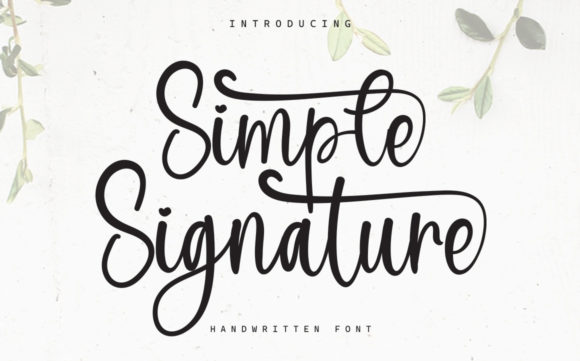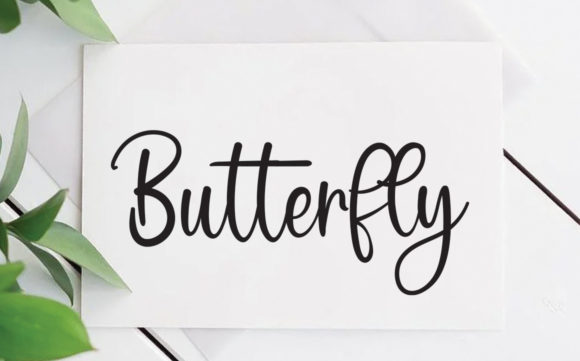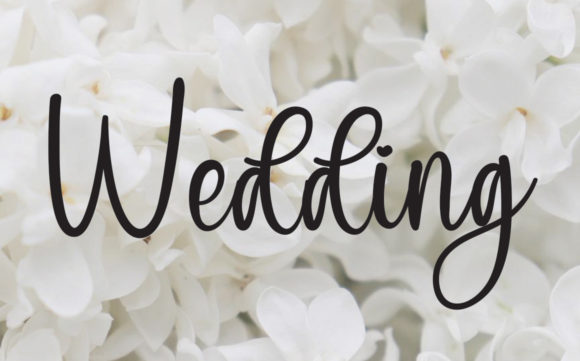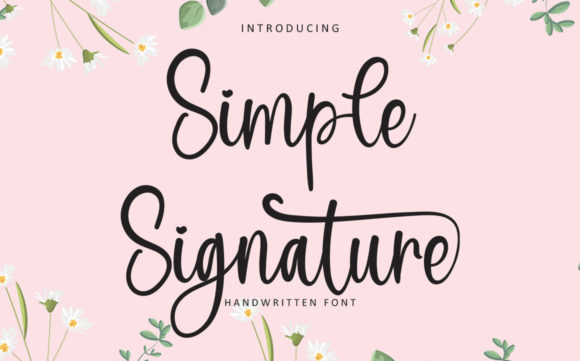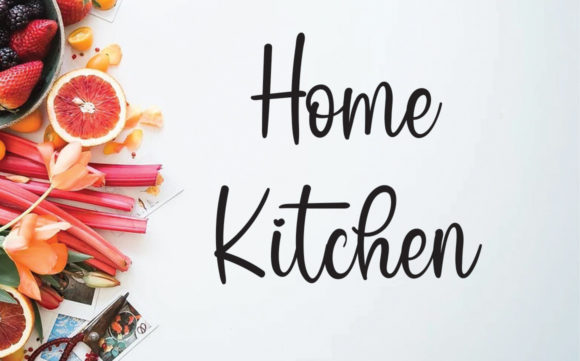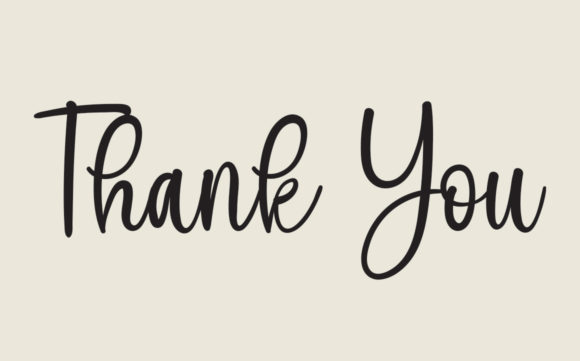
Simple Signature Font
About Simple Signature Font
Simple Signature is a beautiful and flowing handwritten font that adds an elegant touch to a variety of design projects. Whether you’re creating wall displays, wedding invitations, social media post logos, advertisements, product packaging, product designs, labels, photography, watermarks, invitations, stationery, or any project that demands impressive typography, Simple Signature is a versatile choice that delivers a timeless and graceful aesthetic.
The font’s flowing and handcrafted style brings a touch of sophistication to your designs. Its beauty lies in the simplicity of the signature-like strokes, making it perfect for projects that require a personal and stylish touch.
Simple Signature shines in diverse applications. Its versatility allows it to adapt seamlessly to various design contexts, ensuring that your typography enhances the visual appeal of your project, regardless of the medium.
Whether you’re working on social media graphics, elegant invitations, or creating a memorable watermark for your photography, Simple Signature provides a level of elegance that elevates your designs and leaves a lasting impression.
The font’s compatibility with wall displays, advertisements, and product packaging further showcases its adaptability, making it a valuable asset for creating a cohesive and sophisticated brand identity.
Choose Simple Signature when you want to infuse your projects with a beautiful and flowing handwritten aesthetic. Let this font be the key to creating designs that are not only impressive but also exude a sense of timeless beauty and refinement.